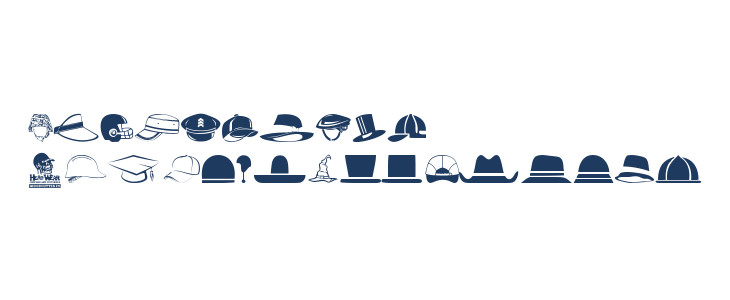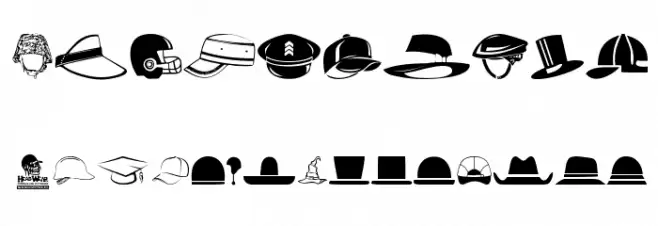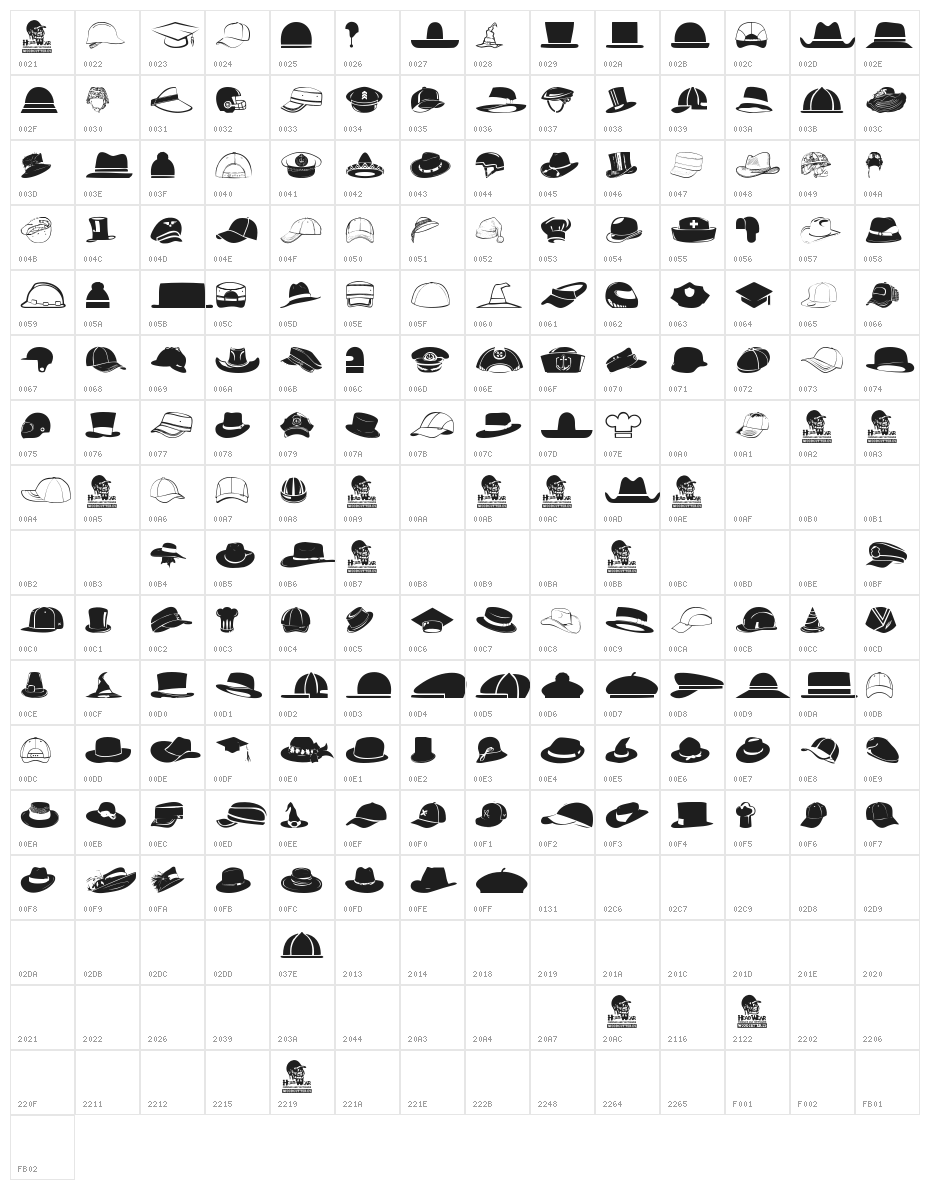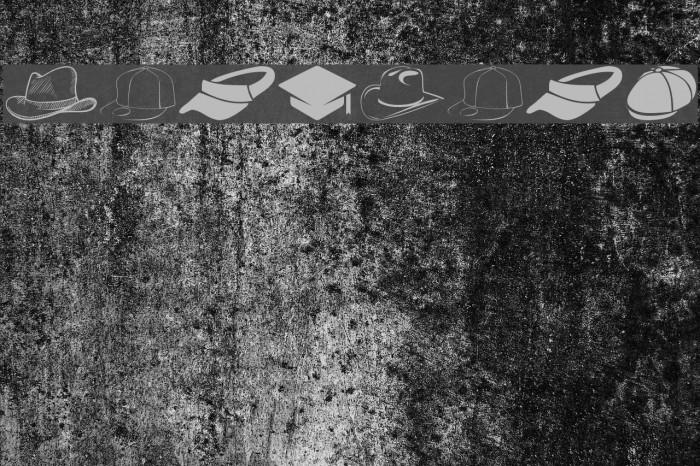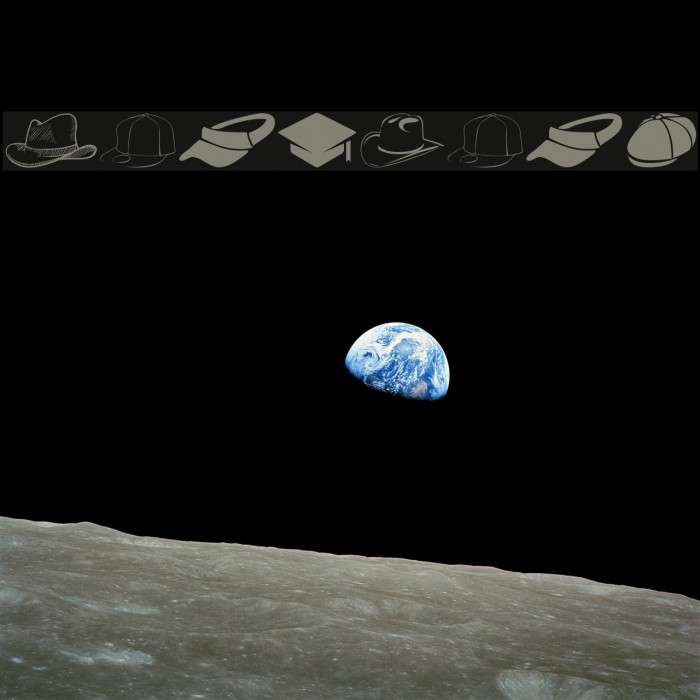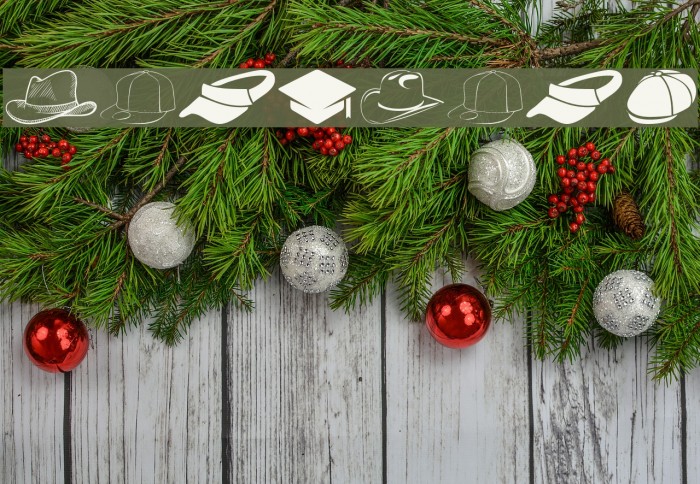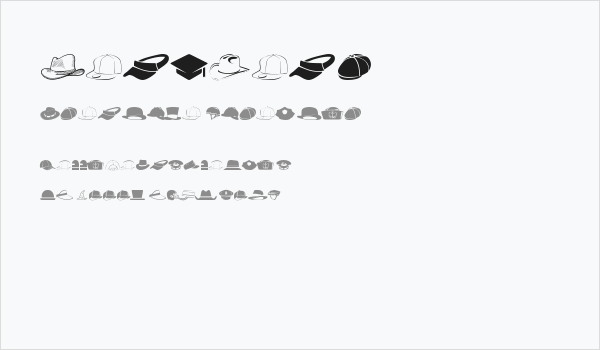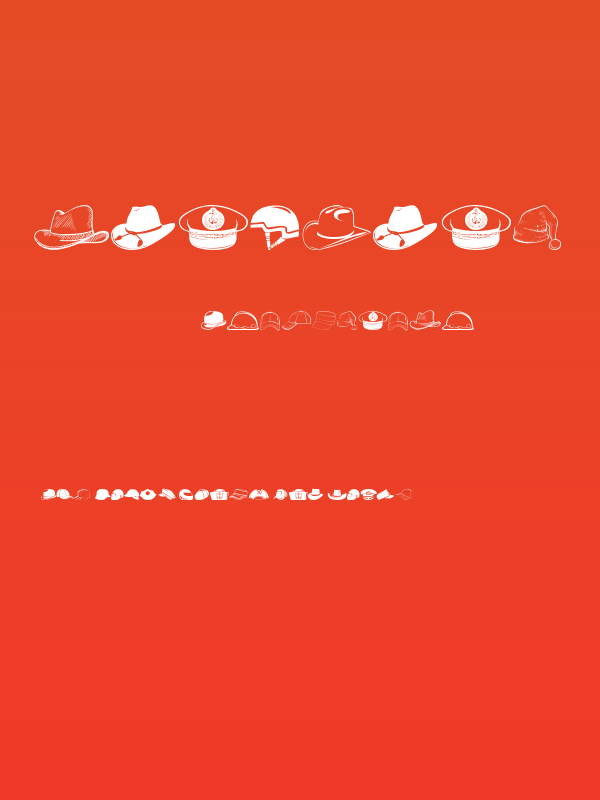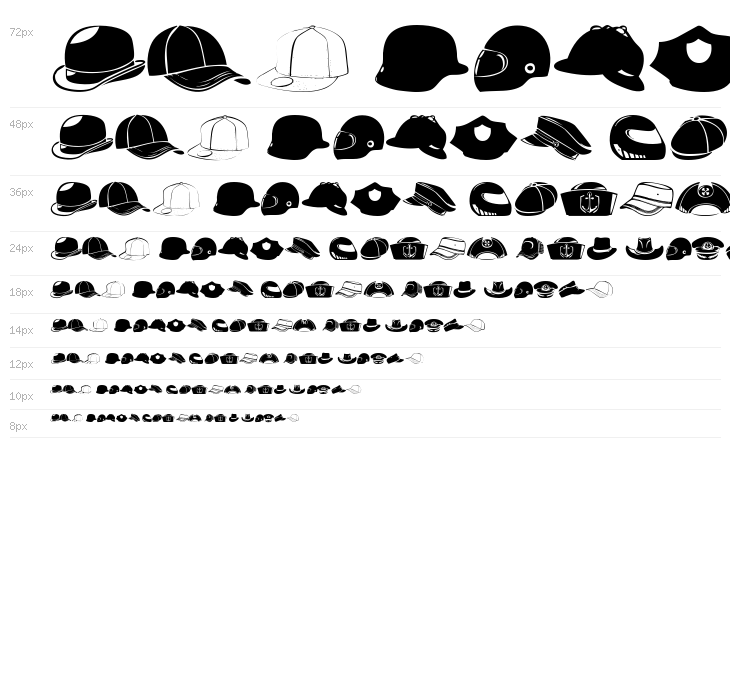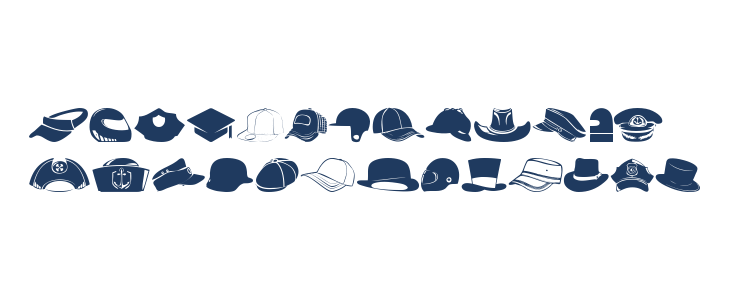
HeadWear Font
HeadWear Description
A collection of black and white vector illustrations depicting various types of hats and headwear, each rendered in a simple, bold, and highly recognizable silhouette style. The icons are consistent in line weight and fill, with a playful yet clear approach to representing headwear from different cultures, professions, and activities.
| Overall Style | Decorative, Playful, Modern |
| Use Case | Icons, Infographics, Themed Graphics, Educational Visuals |
| Proposed Projects | Infographics, educational materials, themed party invitations, costume guides, childrenΓ’β¬β’s books, websites, and apps requiring headwear icons. |